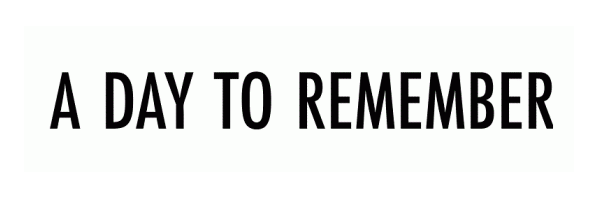
A Day to Remember Font
BandA Day to Remember is an American rock band formed in Ocala, Florida in 2003. They are known for their unique sound that combines elements of pop punk, metalcore, and post-hardcore, and are recognized for hit songs like "If It Means a Lot to You," "All I Want," and "The Downfall of Us All."
As seen on their debut album cover, And Their Name Was Treason the above is the first logo for the band. The font used is Futura EF Medium Condensed.
The logo was then changed to a sans serif with a grunge style for the 2009 release Homesick. ITC Machine Bold is most likely the font used.
The logo is written in Gotham Bold, as seen on the cover of What Separates Me From You, that came in 2010.
The logo above is set in Bodoni, on the cover of the fifth studio album Common Courtesy, released in 2013.